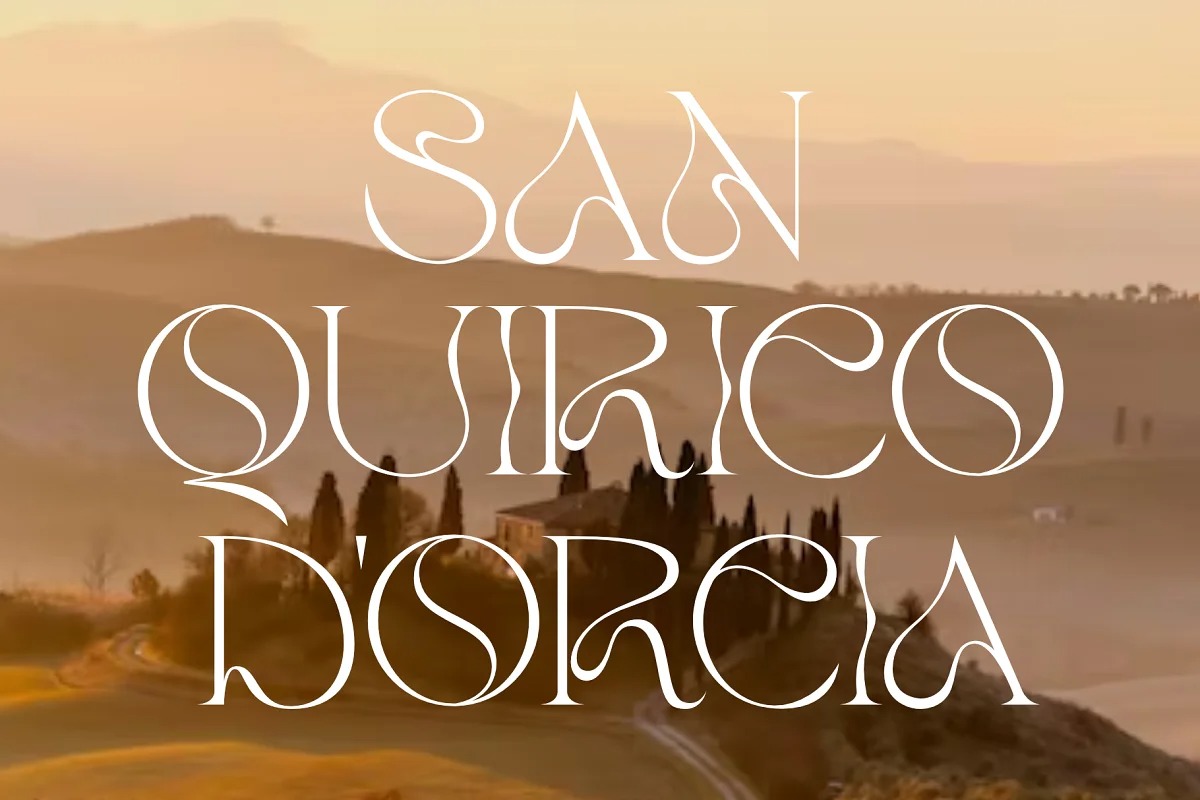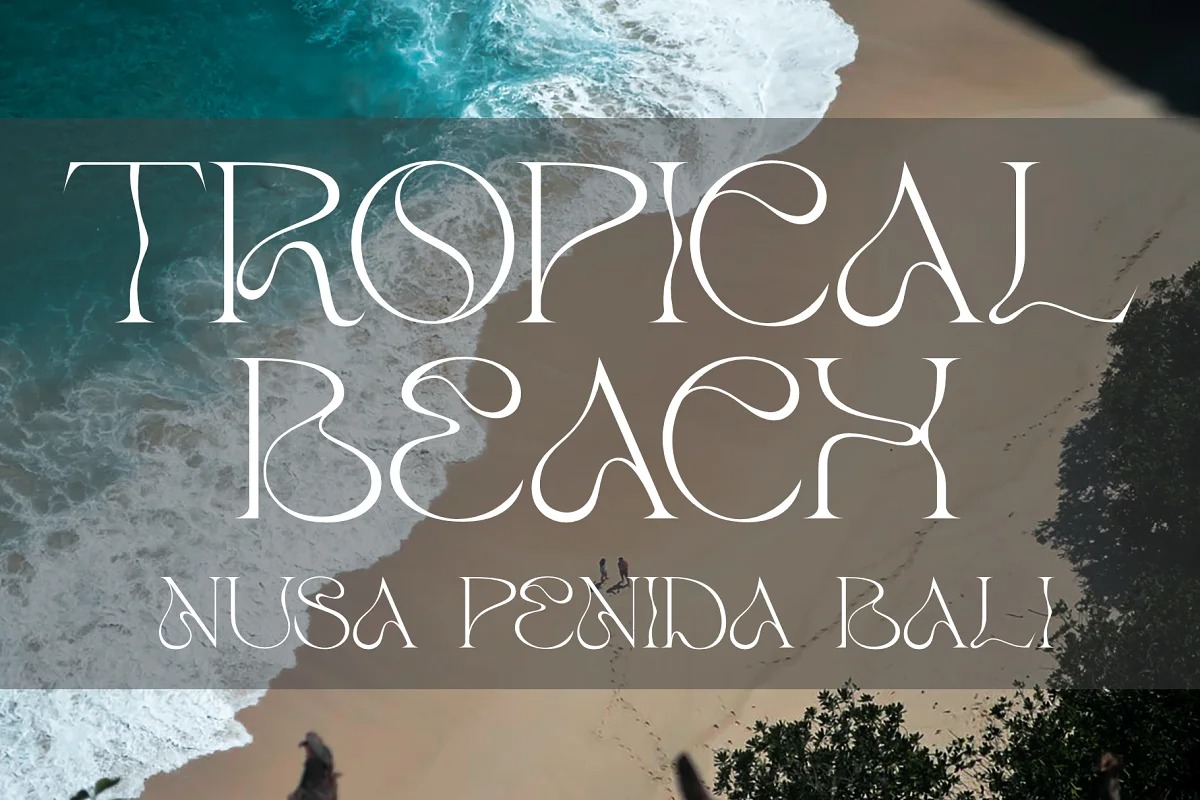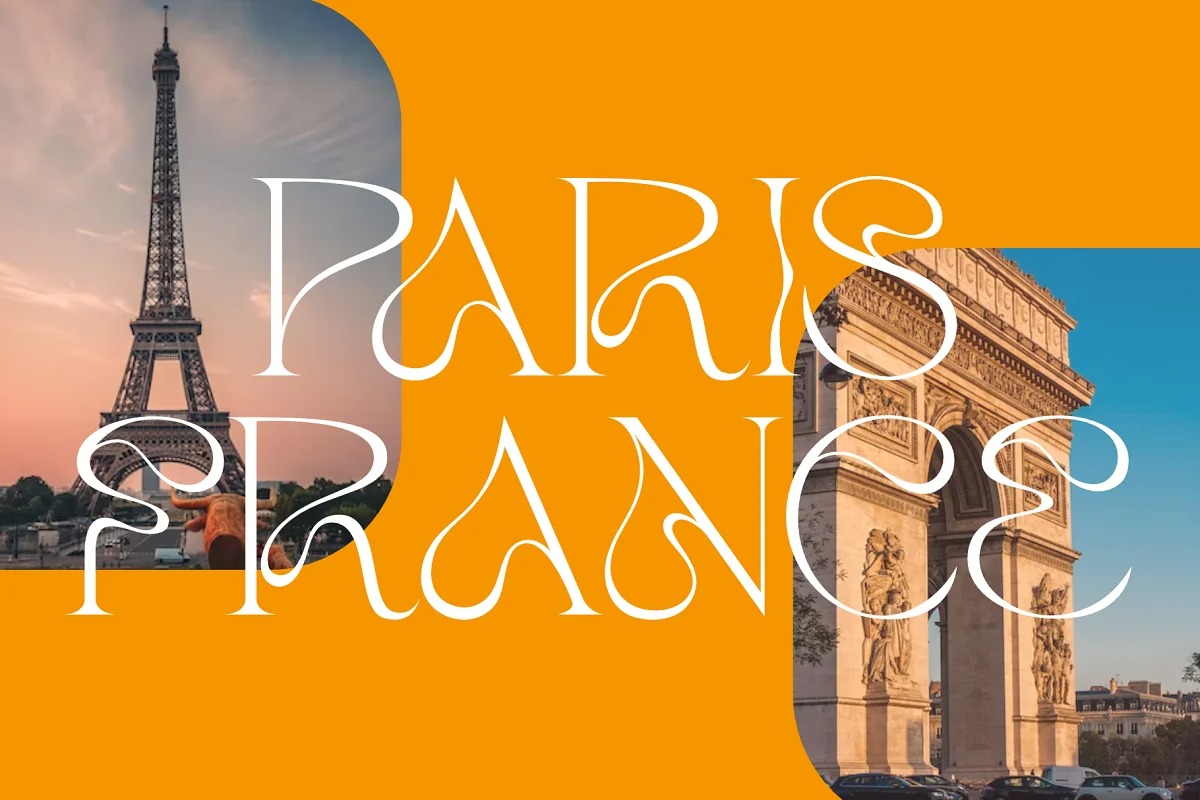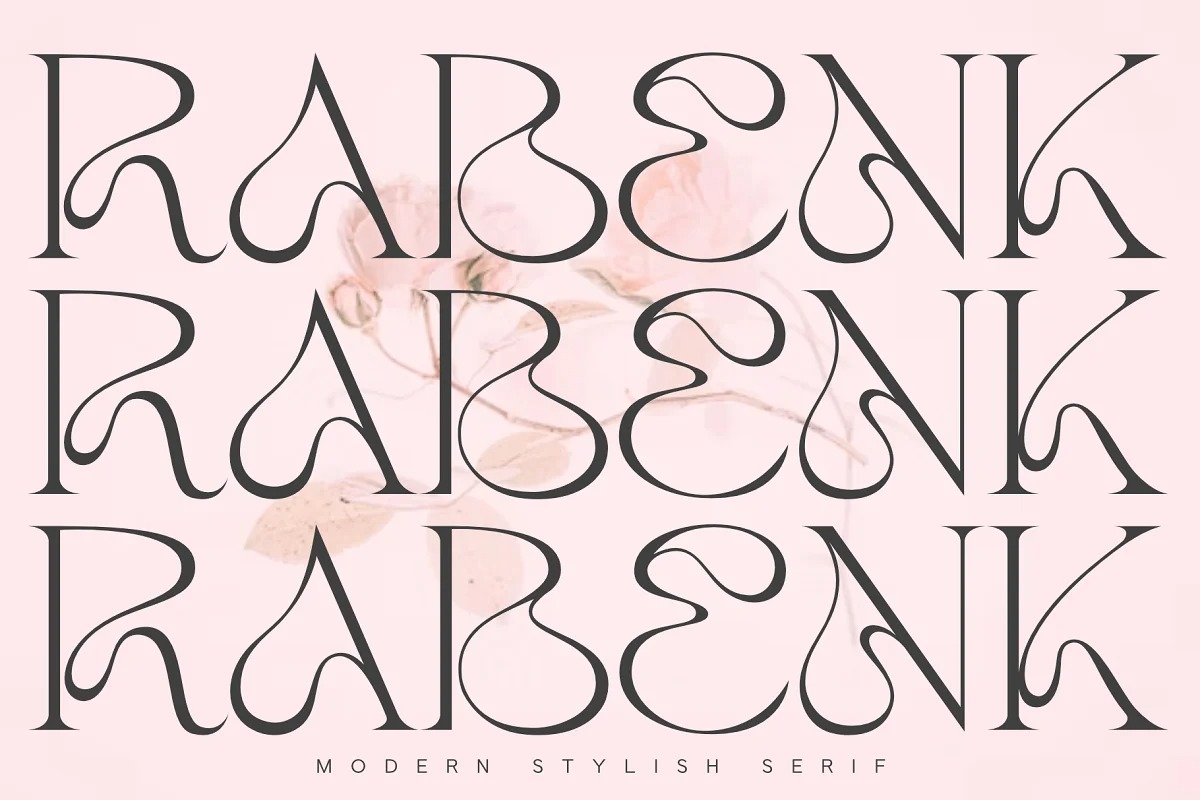
Rabenk Font
Rabenk Serif Font is an modern serif that blends traditional influences into a contemporary aesthetic. Elegantly crafted and easily be matched to an incredible large set of projects. With a modern look, it looks perfect when paired with conventional serif/sans serifs. It can be used for mastheads, posters, business identities and just about anything.